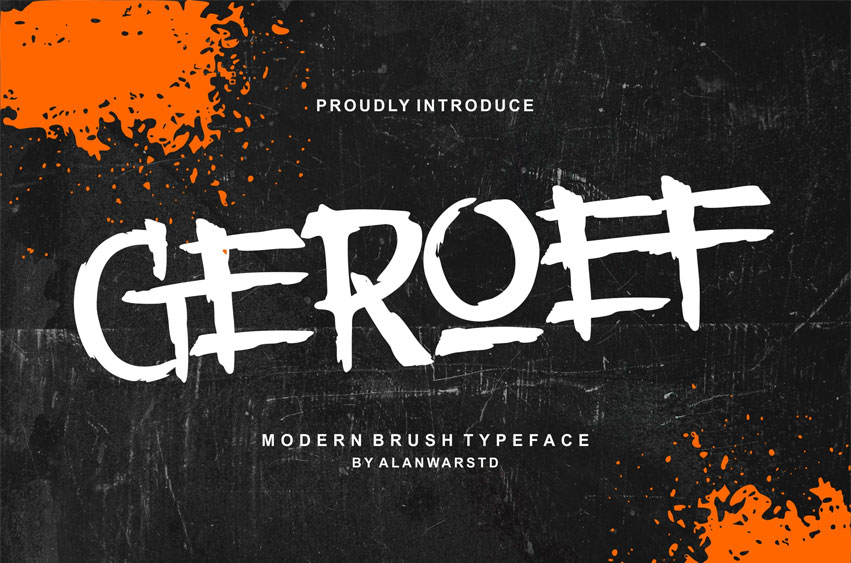
Geroef Font Modern Brush Typeface is a regular and authentic display font. The font is suitable for any branding project like logo, esport, and many more.